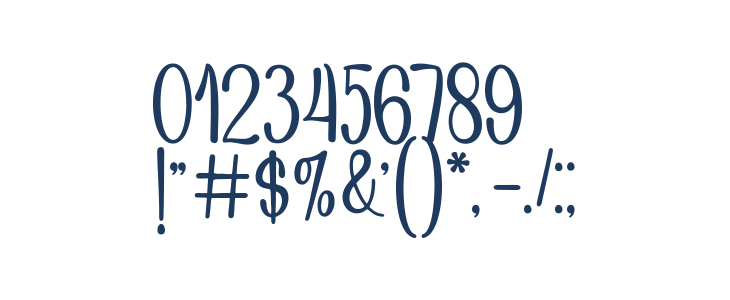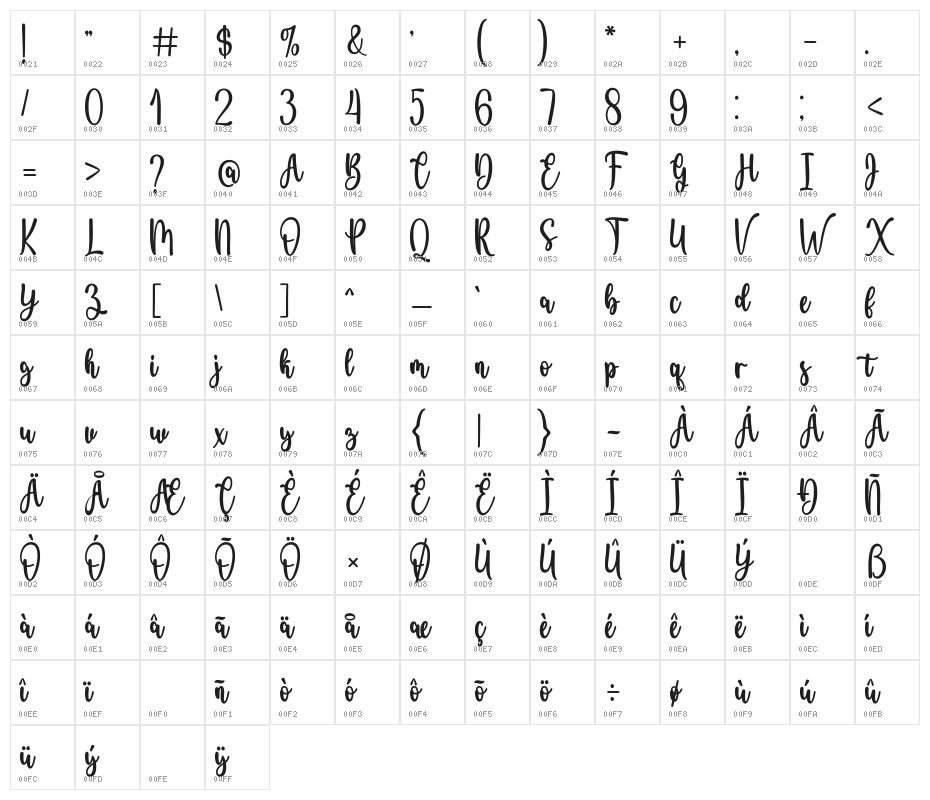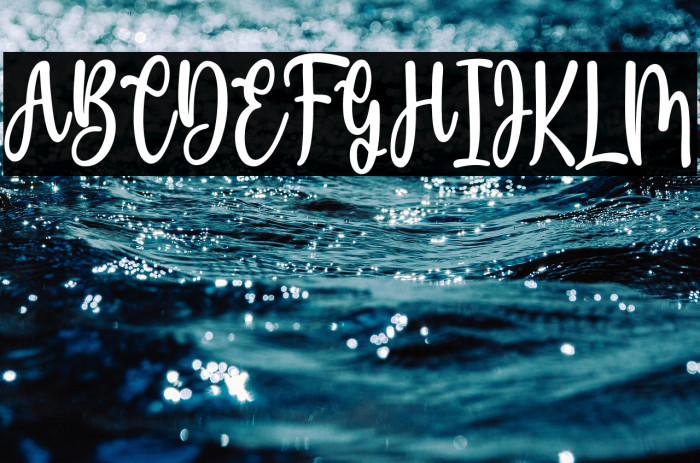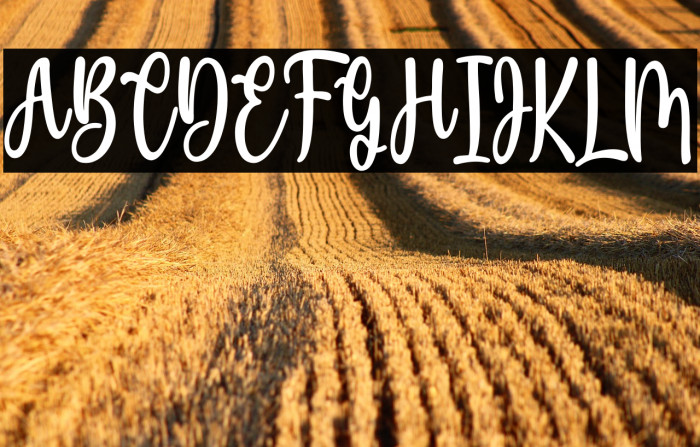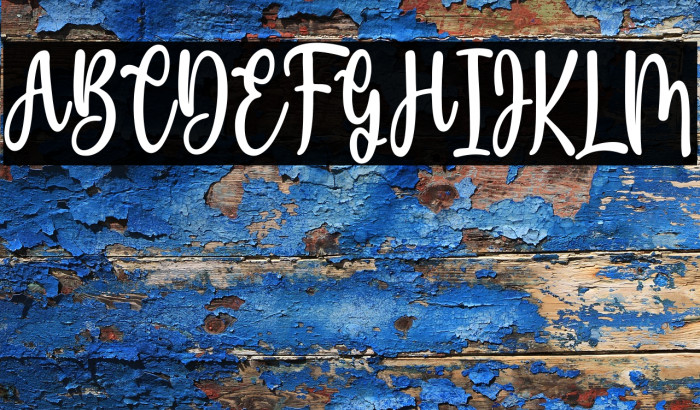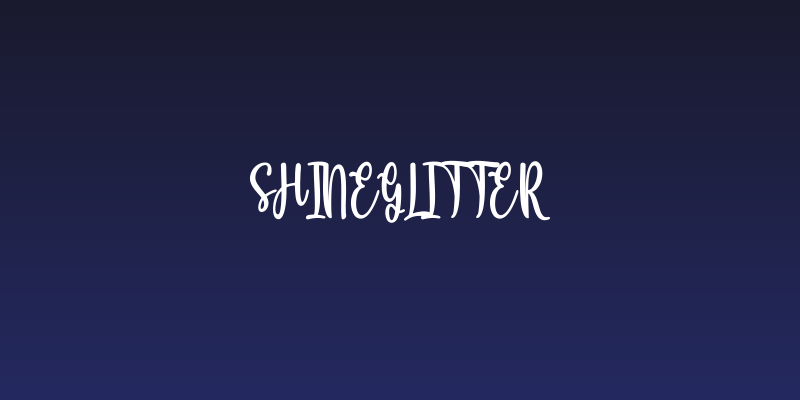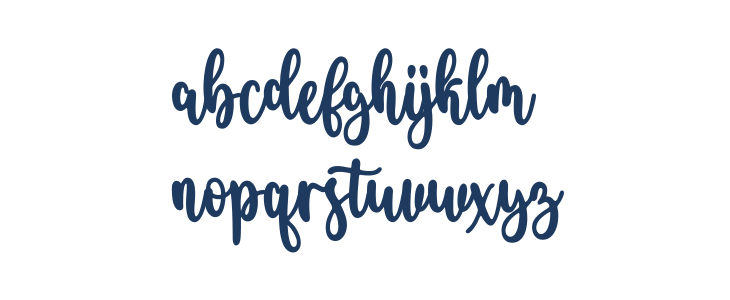
ShineGlitter Font
ShineGlitter Description
This font features a playful and energetic script style with a hand-drawn appearance. The letters are bold and rounded, with a consistent stroke width that gives it a cohesive look. The uppercase letters are tall and slightly narrow, while the lowercase letters have a more relaxed and flowing form. The numbers are clear and legible, maintaining the same playful style. Special characters are included, adding versatility to the font. Overall, this font exudes a fun and lively vibe, making it perfect for creative and informal projects.
| Proposed Projects | Ideal for greeting cards, invitations, posters, and social media graphics. |